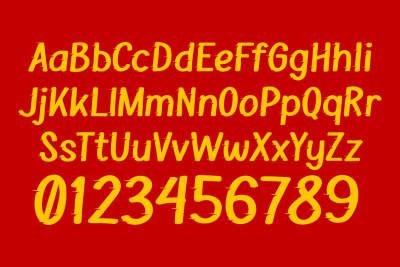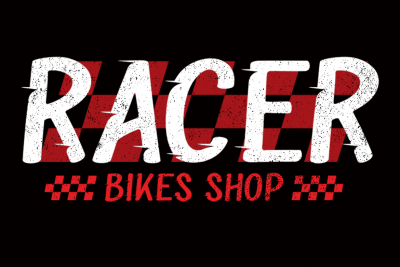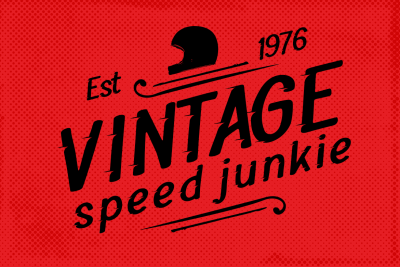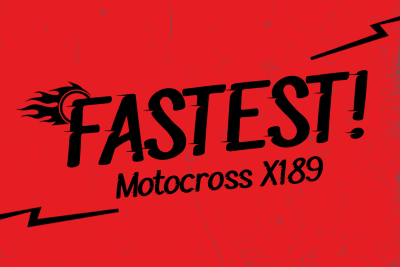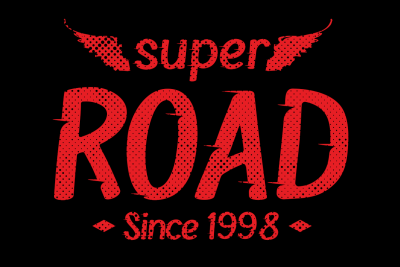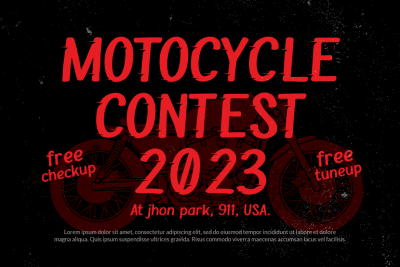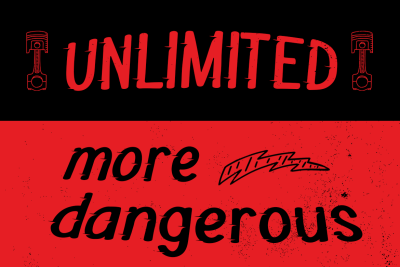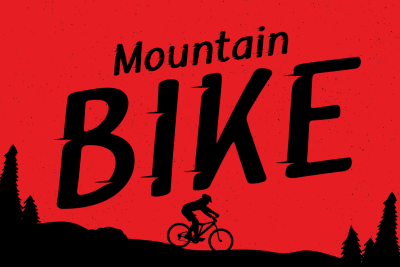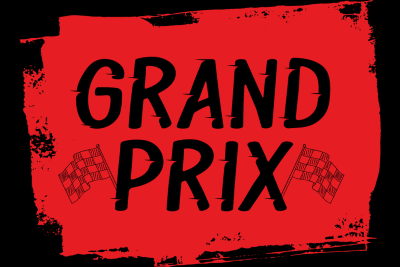
Racing Font Flying Debris is a bold, high-speed display typeface built to convey motion, energy, and raw power. Its rugged texture and slanted letterforms create an intense, adrenaline-fueled feel. Moreover, the distressed look makes it ideal for designs that need impact, urgency, and a sense of action. Whether for motorsports branding, action-packed posters, or high-octane ads, Flying Debris ensures every word looks like it’s racing at full throttle.
Inspired by road racing, dirt tracks, and speed culture, Flying Debris adds an edgy, rebellious touch to any project. Furthermore, hand-drawn imperfections and rough edges enhance its character, making it feel like it was born from the heat of a high-speed chase. Additionally, its bold slant and uneven strokes add movement, making words appear constantly in motion.
This font is built for impact. In particular, bold uppercase letters ensure readability, even from a distance. It works well for headlines, event promotions, sports branding, and digital content. Whether used for banners, merchandise, or racing visuals, Racing Font Flying Debris injects speed and intensity into any design.
Racing Font Flying Debris Who is it for?
Flying Debris is perfect for designers, brands, and creators who want a bold, aggressive, and fast-moving style. Specifically, it works best for:
- Motorsports and Automotive Brands: Racing teams, car customization shops, and automotive events can use this font for branding, vehicle decals, and posters. Notably, it enhances the thrill of speed-related branding.
- Extreme Sports and Action Events: Perfect for BMX competitions, motocross events, and skateboarding brands looking for a bold visual identity. As a result, it amplifies the intensity of extreme sports marketing.
- Gaming and eSports: Great for fast-paced gaming titles, especially in racing, action, or adventure genres. Consequently, it adds an edgy, high-energy vibe to branding.
- Streetwear and Urban Fashion Brands: The distressed and rebellious look of Flying Debris suits apparel, t-shirts, and merchandise tied to street culture. Therefore, it helps create a fearless and impactful style.
- Concerts and Music Festivals: Bands and events looking for a high-energy, grunge-inspired aesthetic can use Flying Debris for posters and album covers. In turn, it enhances the raw and electrifying atmosphere of live performances.
- YouTubers and Content Creators: Automotive, extreme sports, and gaming influencers can enhance branding, thumbnails, and banners with this fast-moving font. Ultimately, it ensures their content captures attention instantly.
Racing Font Flying Debris is the perfect choice for injecting movement, energy, and rebellion into any design. Most importantly, if your project demands speed, intensity, and bold expression, Flying Debris delivers unmatched power and style.